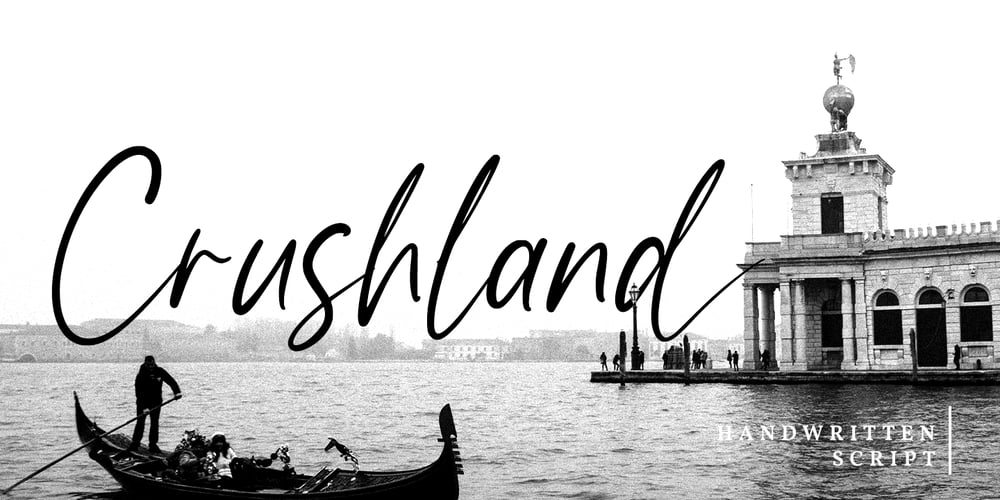
Crushland Font Family was designed by Donis Miftahudin and published by Ditatype. Crushland contains 1 styles and family package options. Crushland is a beautiful handwritten font. With a natural handwritten style, it brings a classy and beautiful typeface. Crushland is best used for branding, logotype, and quotes.Features: – Multilingual Support – Stylistics Set – Beautiful Ligatures – PUA Encoded – Numerals and PunctuationThanks for visiting and purchasing my font!